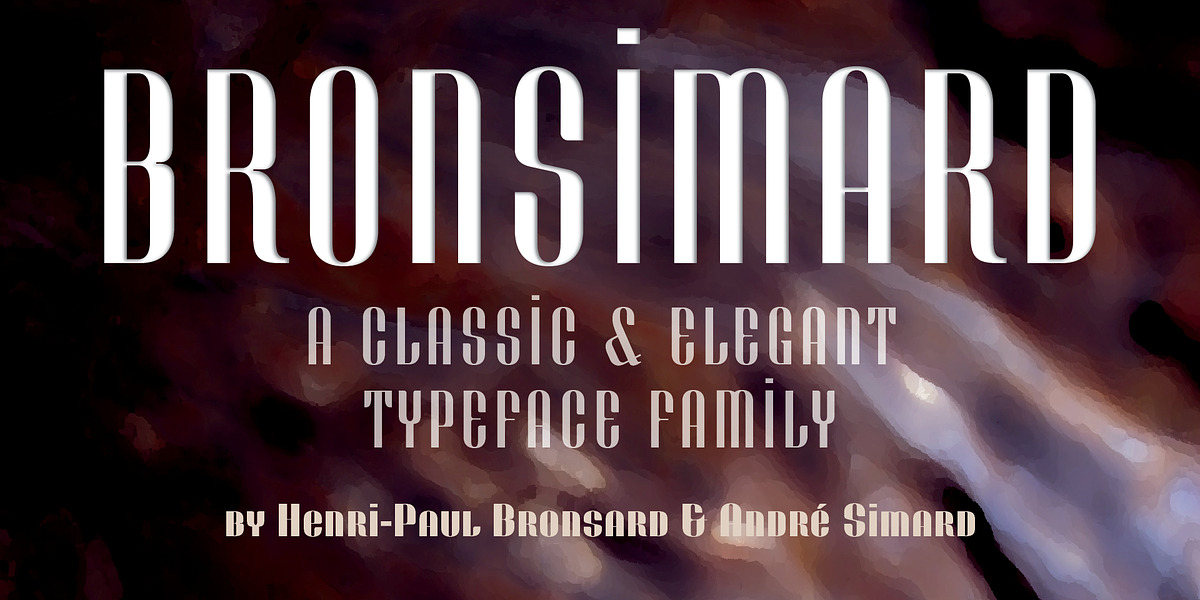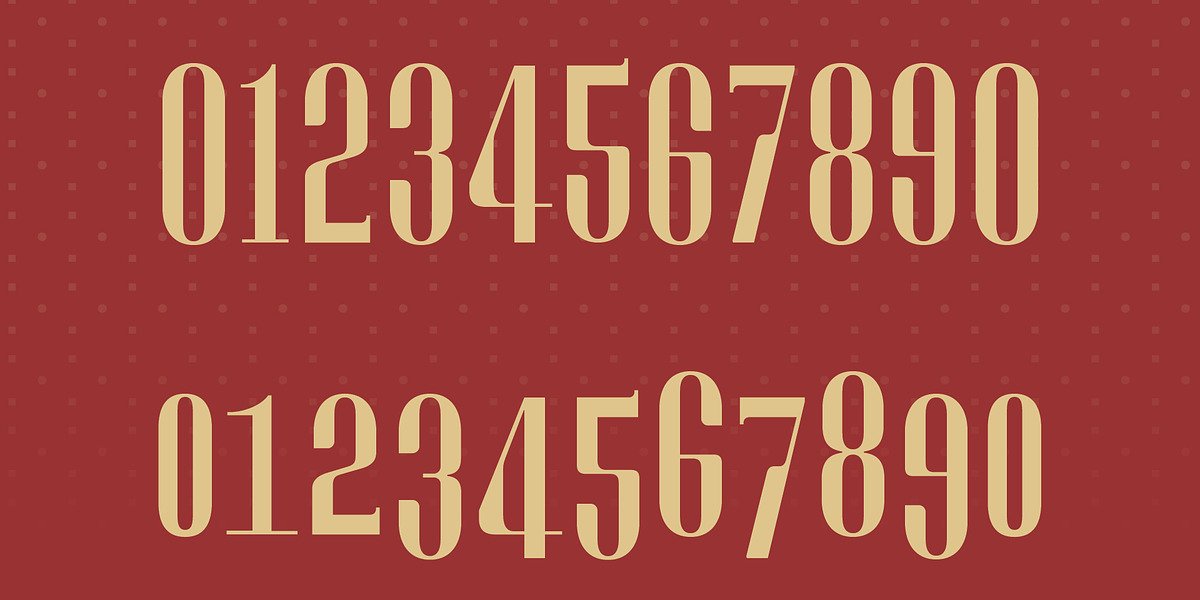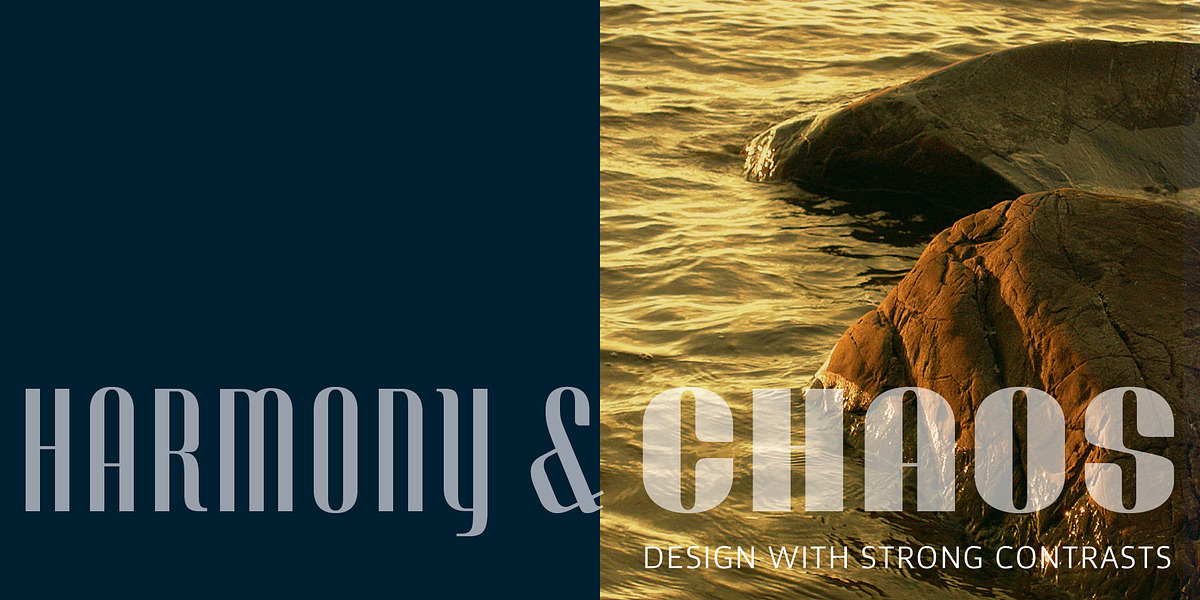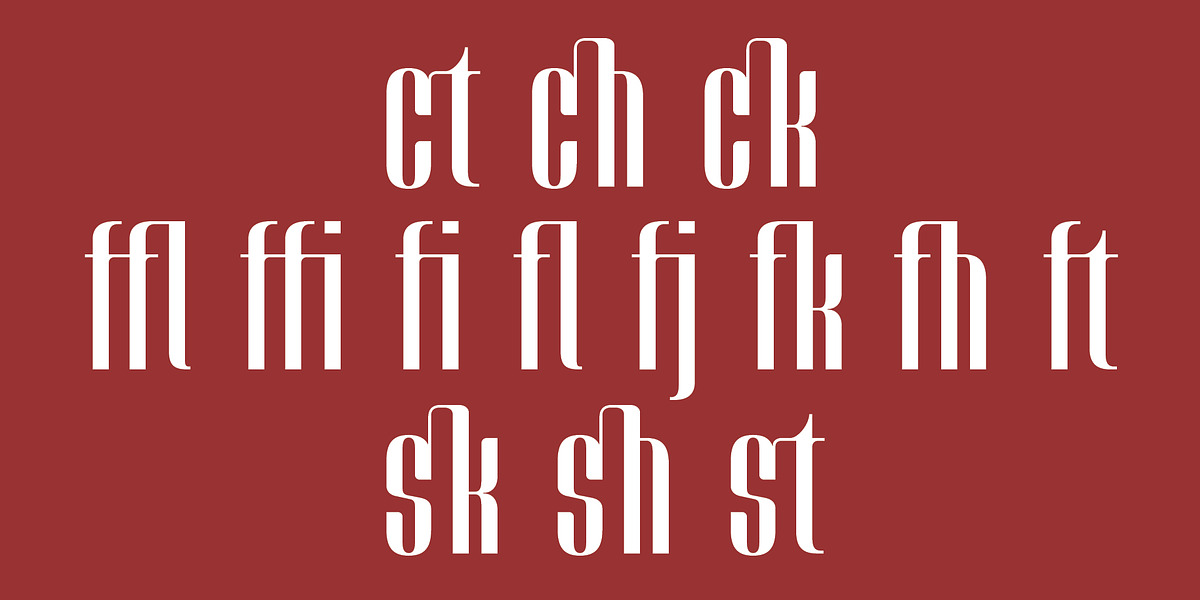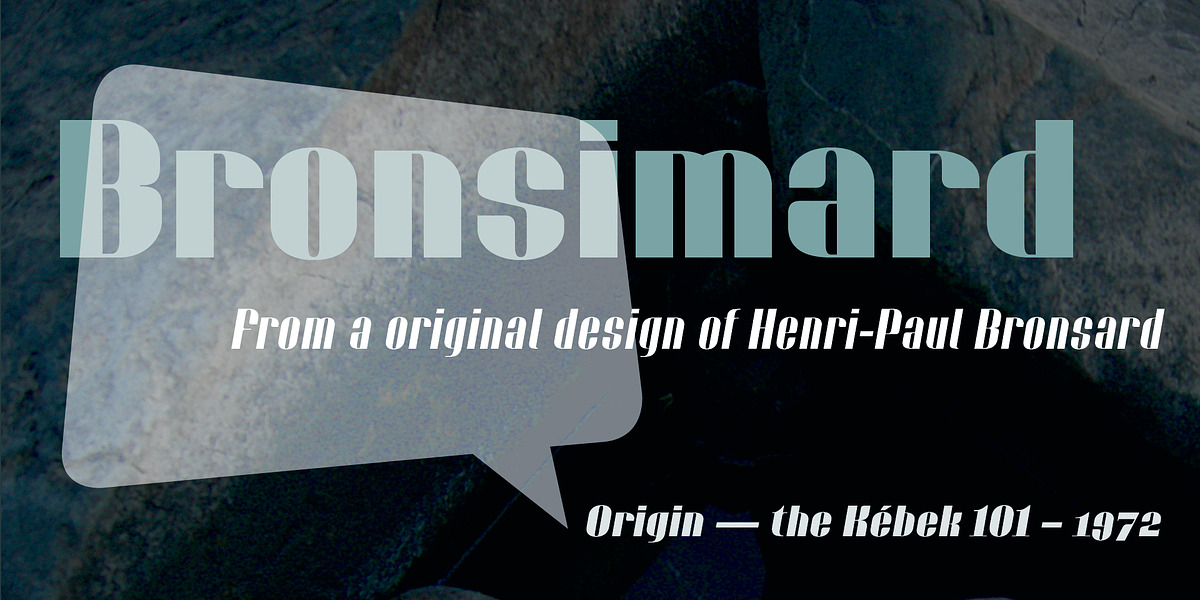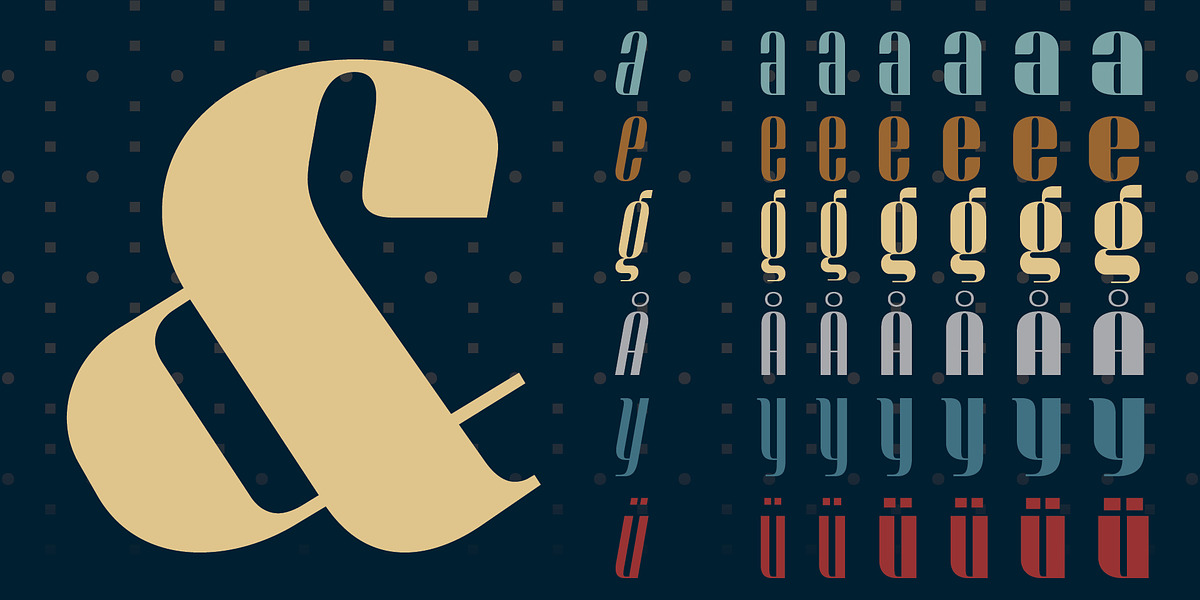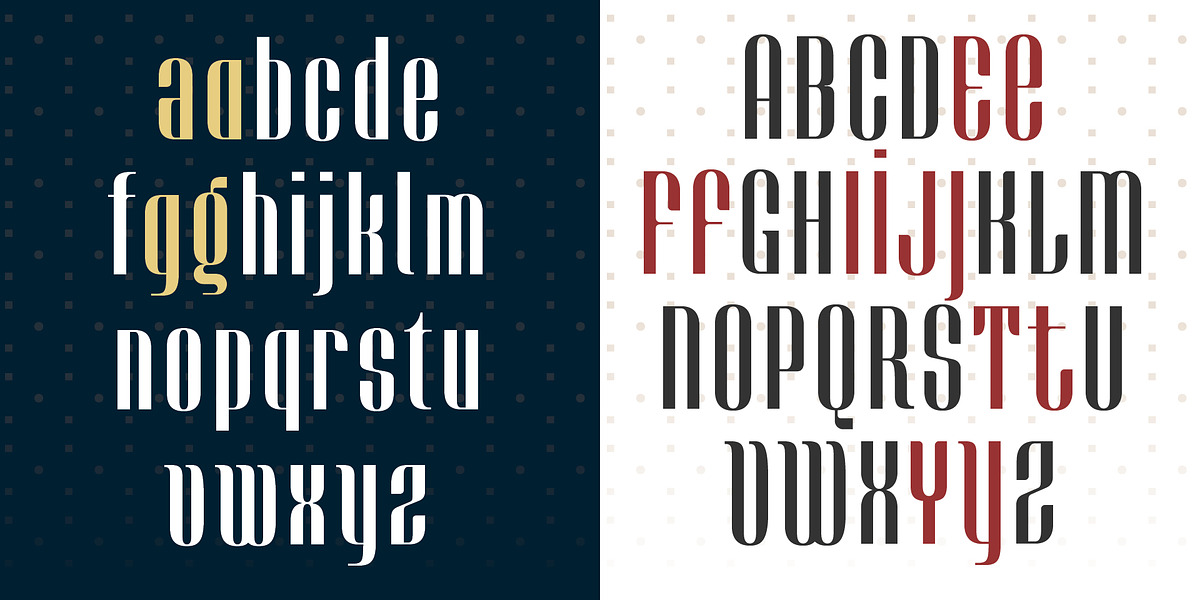
Bronsimard
Bronsimard is a high-contrast sans serif font inspired by Henri-Paul Bronsard's Kébek 101. André Simard, a former student of Bronsard, drew this variant based on Bronsard's research efforts. The result is a vertically elongated typeface reminiscent of classic Didone typefaces like Bodoni and Didot, offering a blend of elegance and boldness. Bronsimard comes in twelve font weights, encompassing both normal and italic styles.